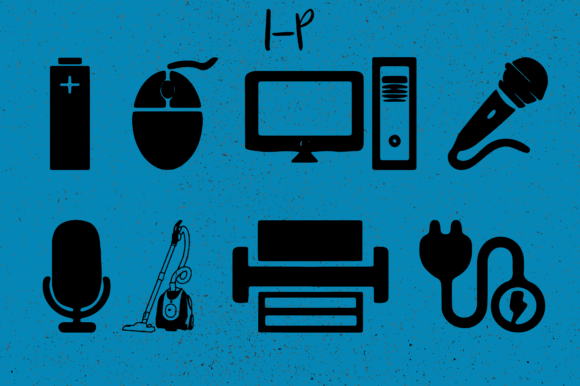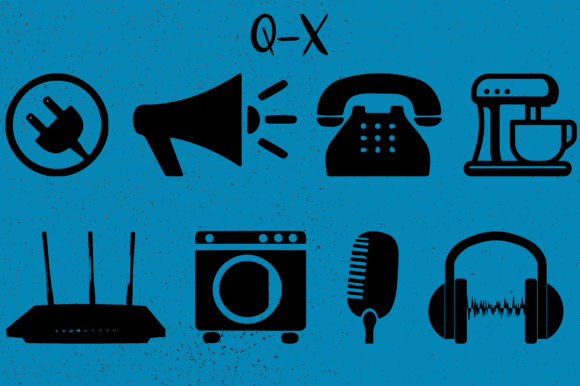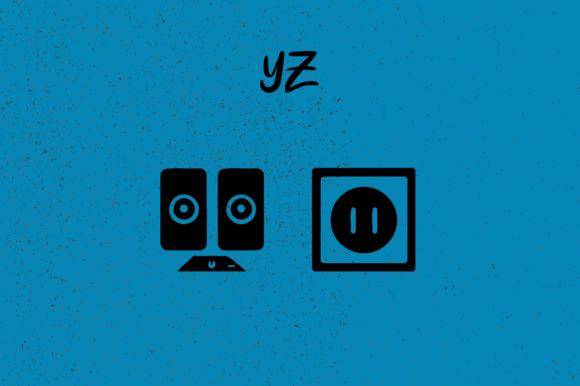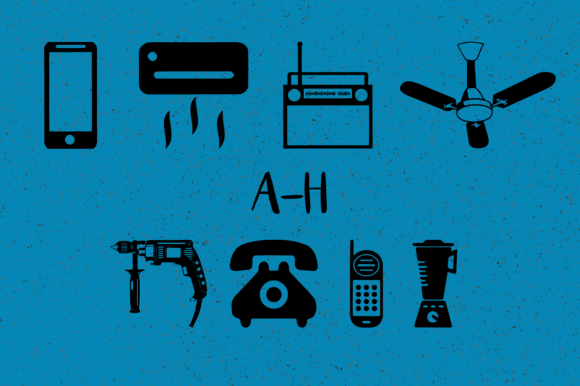
Eletronica Font
About Eletronica Font
Eletronica is an innovative and versatile dingbats typeface that offers a wide range of unique electronics-related icons to enhance your designs. With its distinct style and comprehensive set of glyphs, this font is perfect for projects related to technology, gadgets, electronics, and more.
Eletronica allows you to effortlessly generate various electronics icons by simply typing capital and small letters, as well as numbers. Each character corresponds to a different icon, making it easy to access and use the desired graphic element in your designs. Whether you need symbols representing devices, components, or technological concepts, Eletronica has you covered.
From computer-related icons like keyboards, monitors, and processors, to mobile devices, headphones, and smart home gadgets, Eletronica offers a diverse collection of electronics icons that cater to a wide range of design needs. Whether you’re creating digital interfaces, presentations, infographics, or any other project that requires visual representations of electronics, Eletronica provides a valuable resource.
The unique design of Eletronica icons adds a modern and sleek aesthetic to your designs. The clean lines, sharp edges, and attention to detail make each icon visually appealing and easily recognizable. This ensures that your designs effectively communicate the intended electronics-related concepts and engage the viewers.
Eletronica can be used in various design projects across different mediums. Whether you’re working on digital designs, print materials, presentations, or even crafting projects, this dingbats font seamlessly integrates into your creative workflow. Its versatility allows you to use it in branding, advertising, web design, product packaging, and more.
With Eletronica, you can elevate your electronics-related designs and give them a professional and polished look. The ability to generate unique icons with ease saves you time and effort, allowing you to focus on the overall composition and messaging of your design.
In conclusion, Eletronica is a unique and comprehensive dingbats typeface that offers a wide range of electronics-related icons. By typing capital, small letters, and numbers, you can generate various symbols representing electronic devices, components, and concepts. Whether you’re working on technology-focused projects or need to incorporate electronics icons into your designs, Eletronica is a valuable asset that adds a touch of modernity and sophistication to your creations.